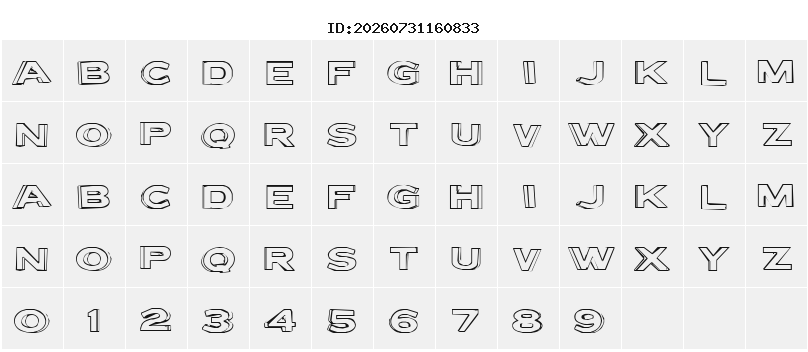
• Font Name: Letter Set B
• Designer: Ray Larabie
• Manufacturer: Larabie Fonts
About Letter Set B.ttf
Letter Set B.ttf is a modern, elegant sans-serif font designed for ultimate readability and visual harmony. Perfect for branding, headlines, web design, and print materials.